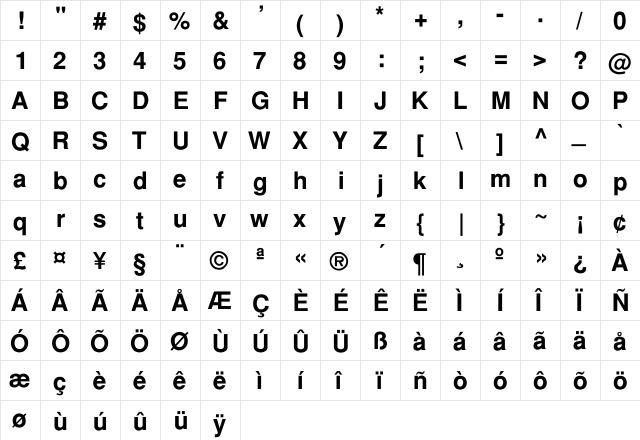
Holland Reg Bold Regular
Design Context for Holland Reg Bold Typeface
Holland Reg Bold offers clean, dependable letterforms without strong stylistic allegiance, making it a practical choice for designers who need flexibility. The heavy weight commands attention and anchors typographic hierarchies.